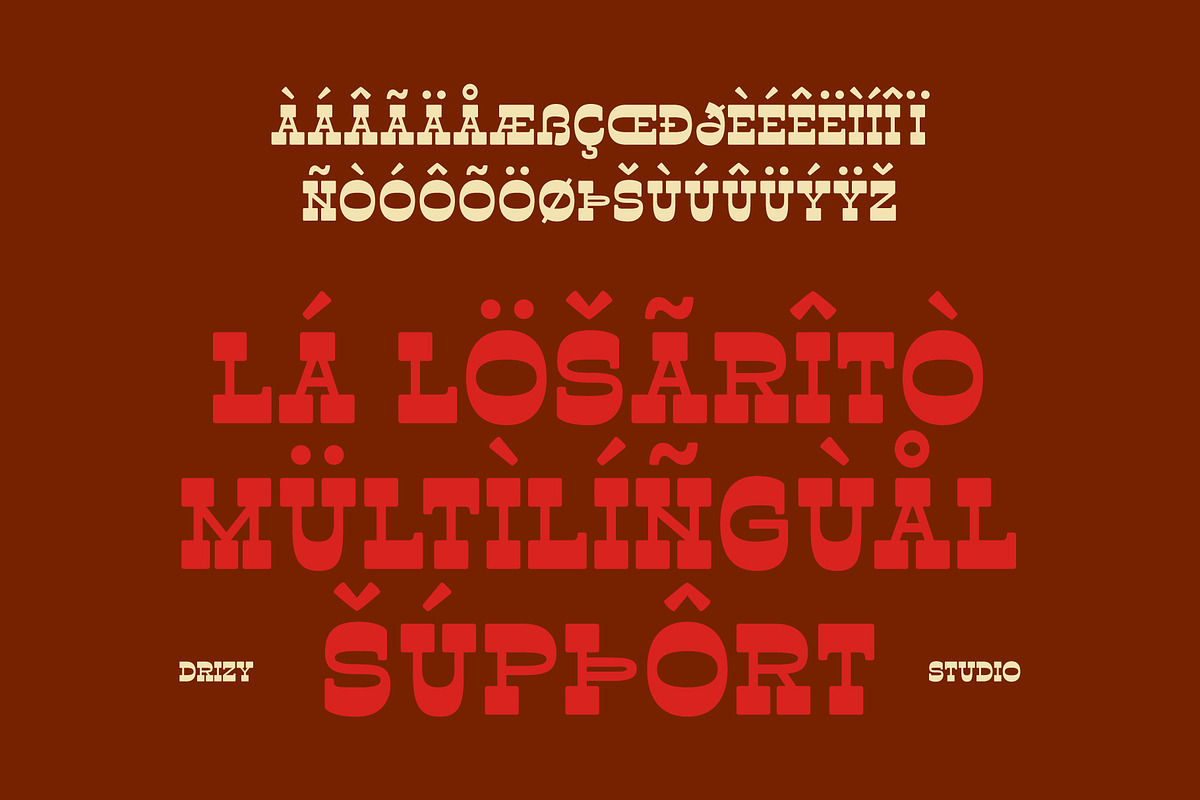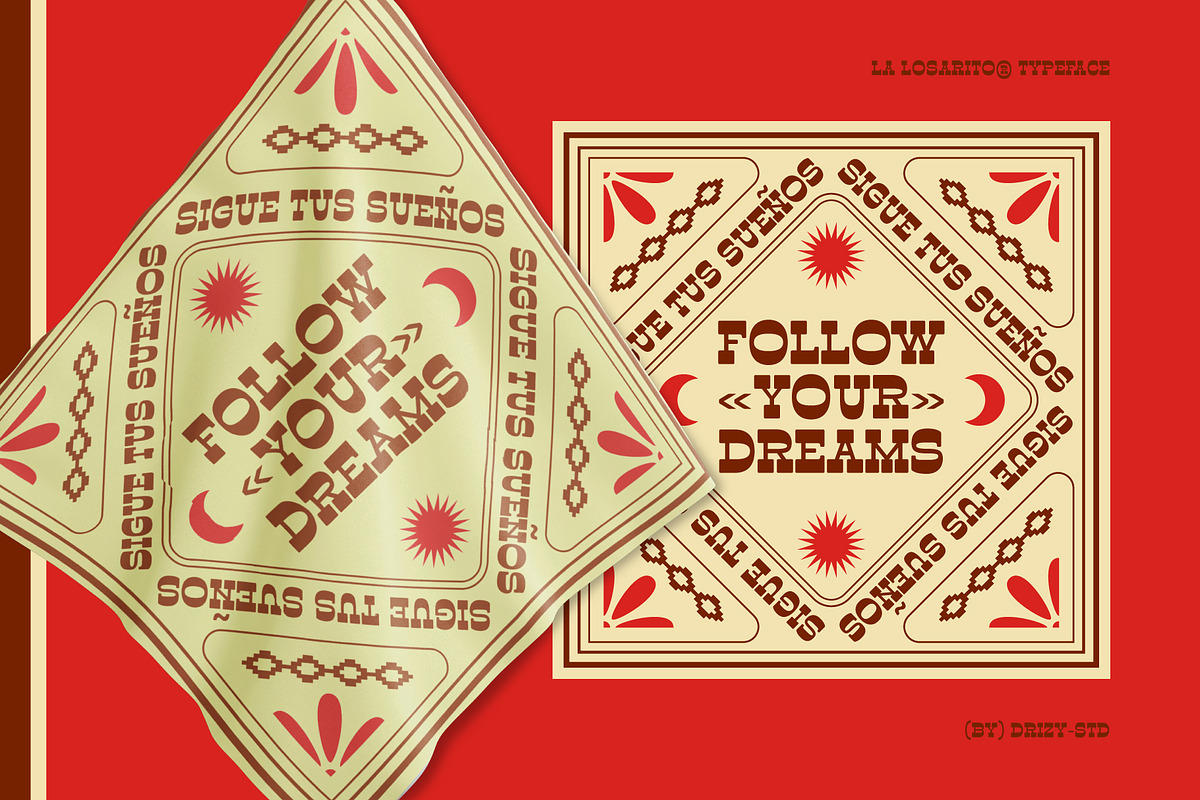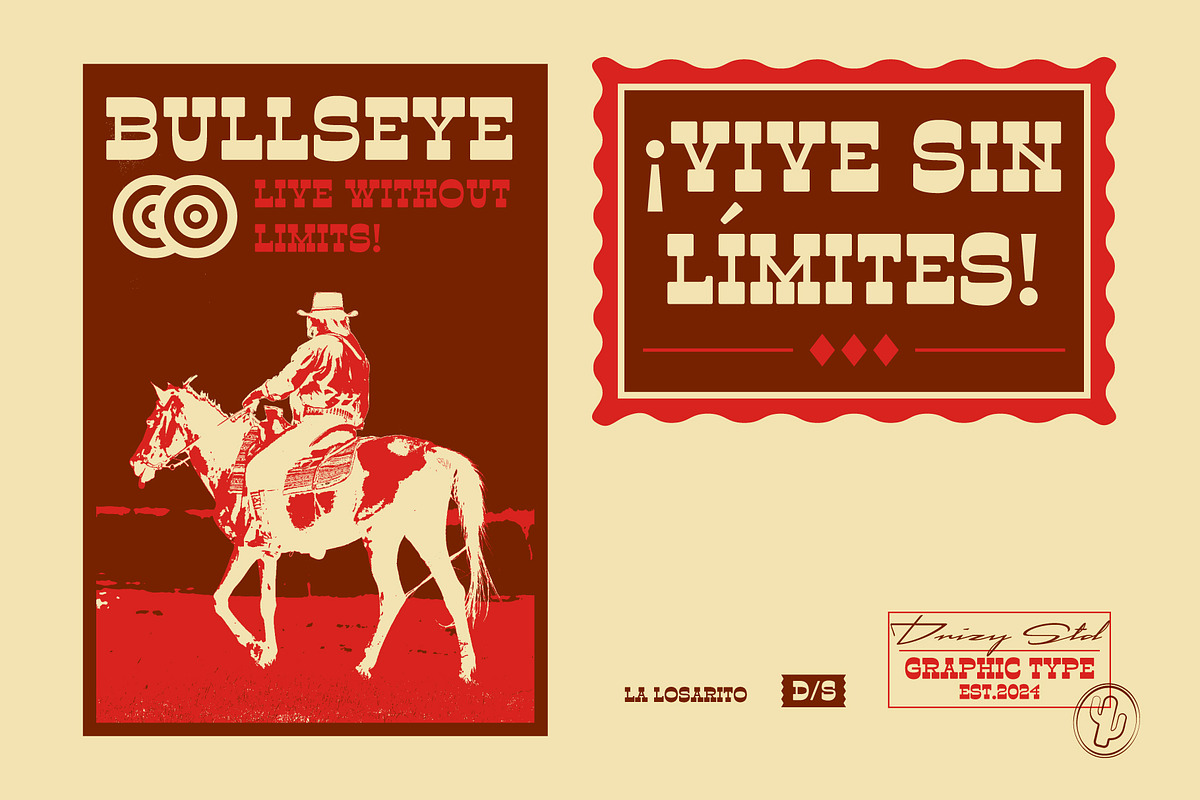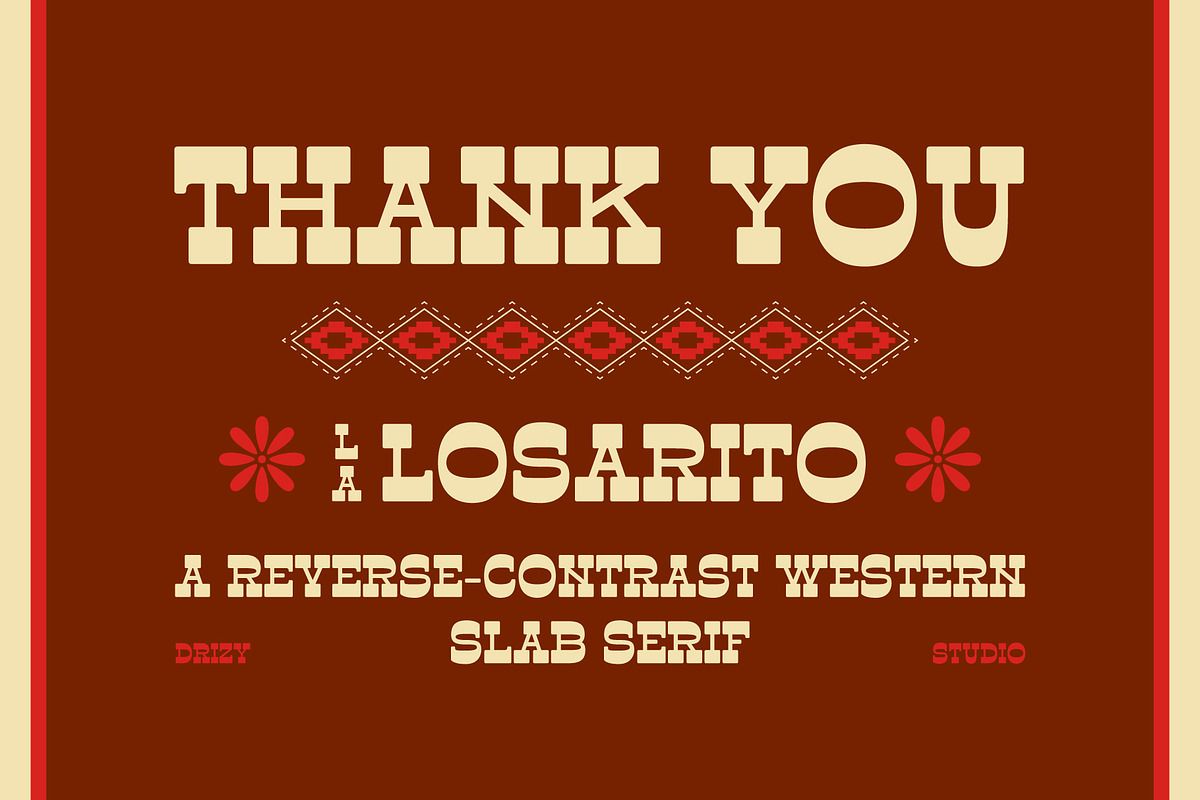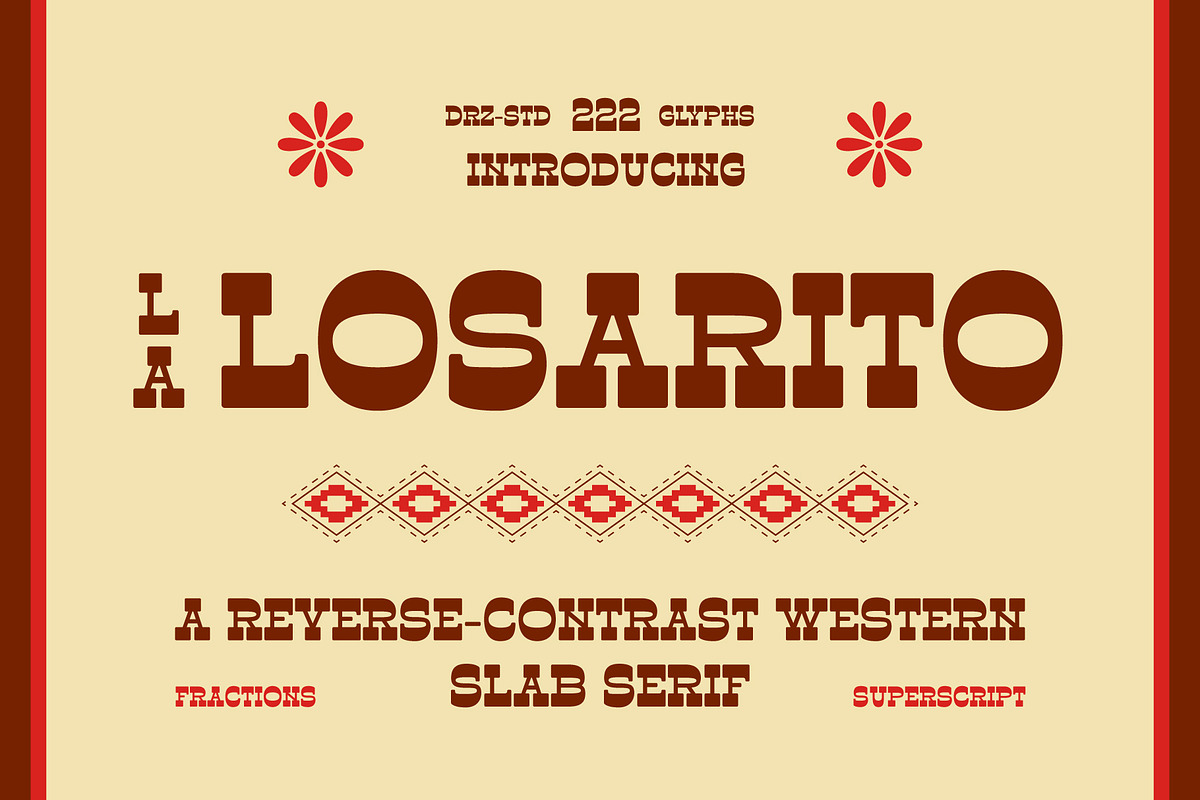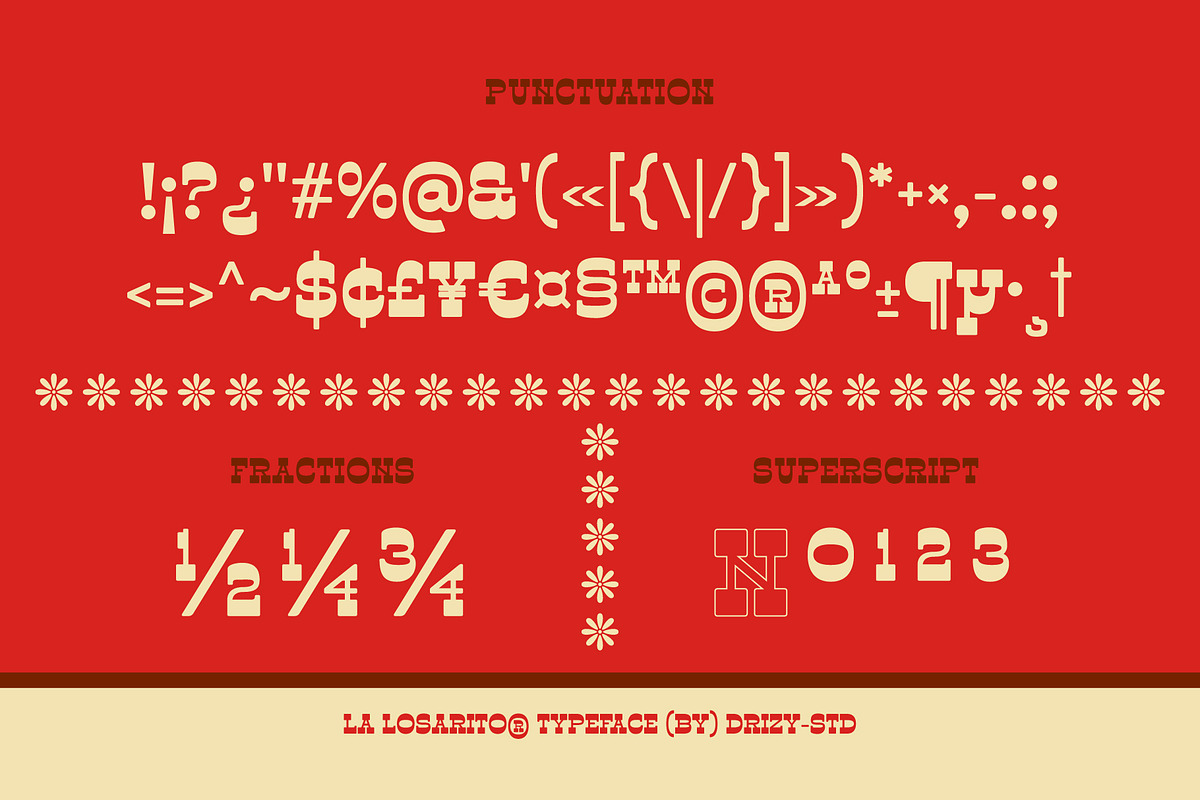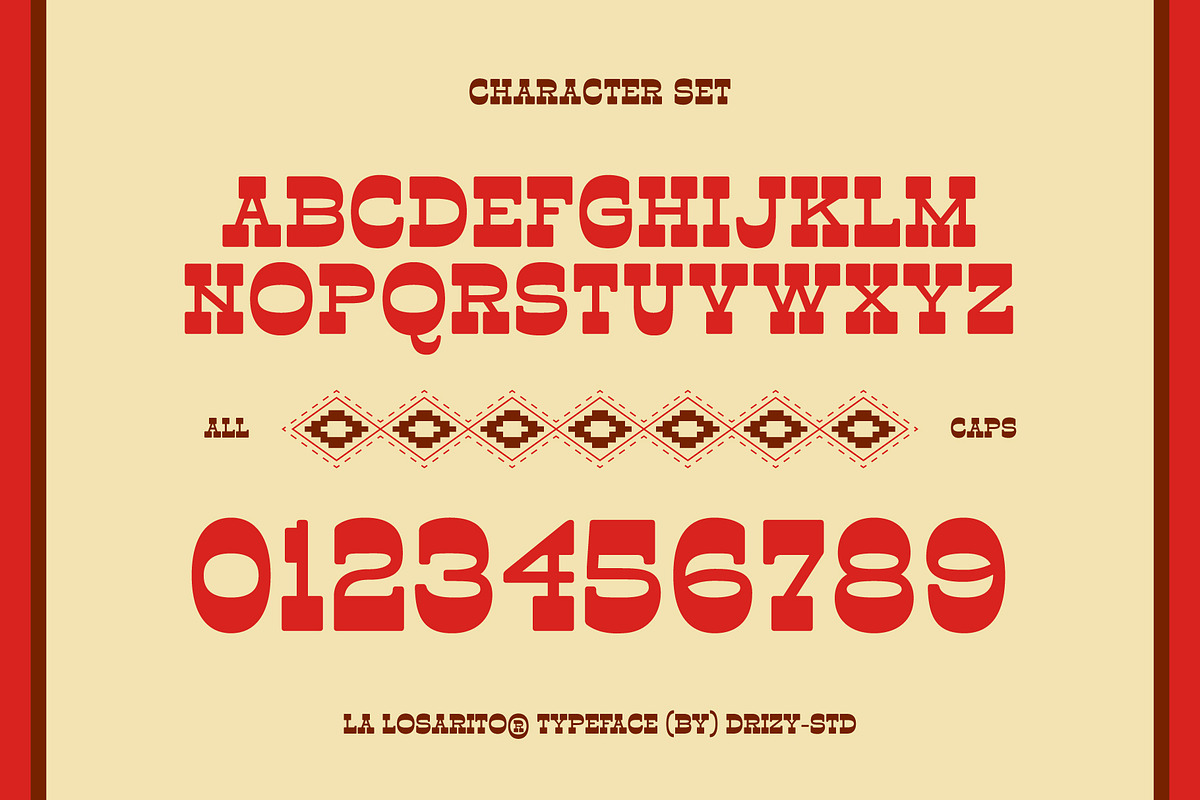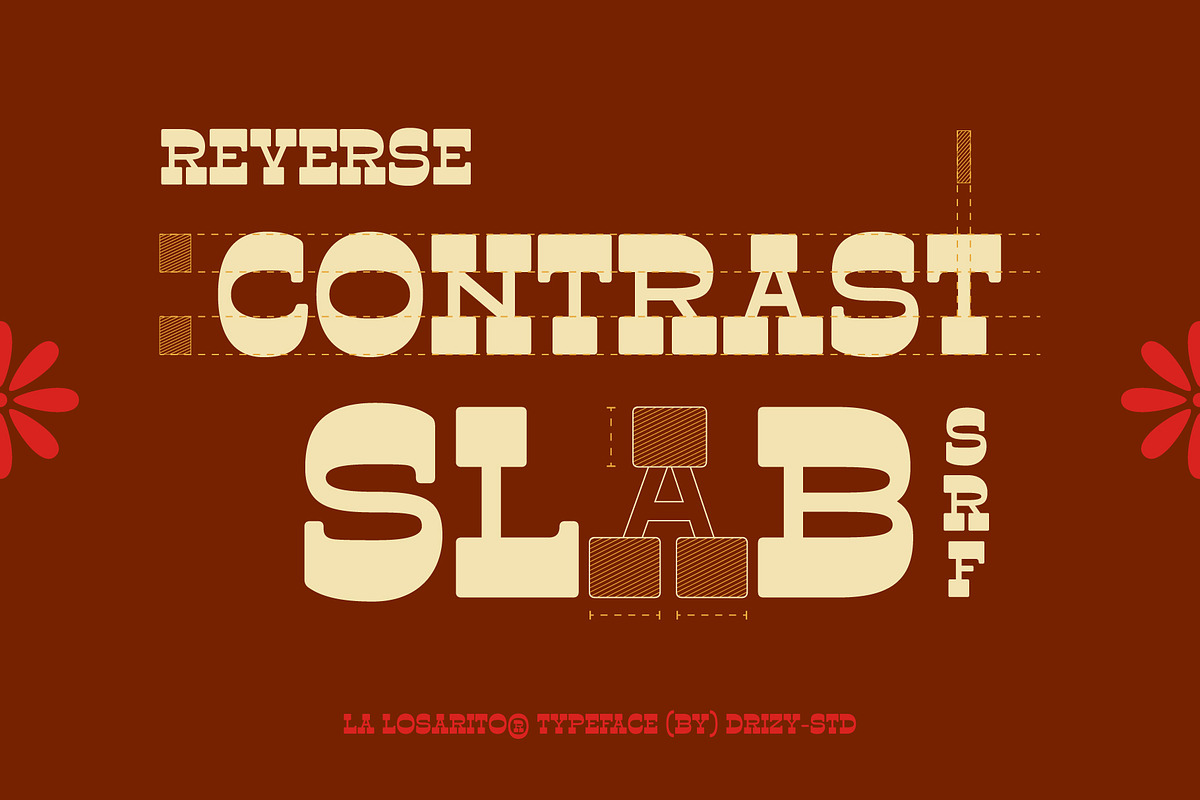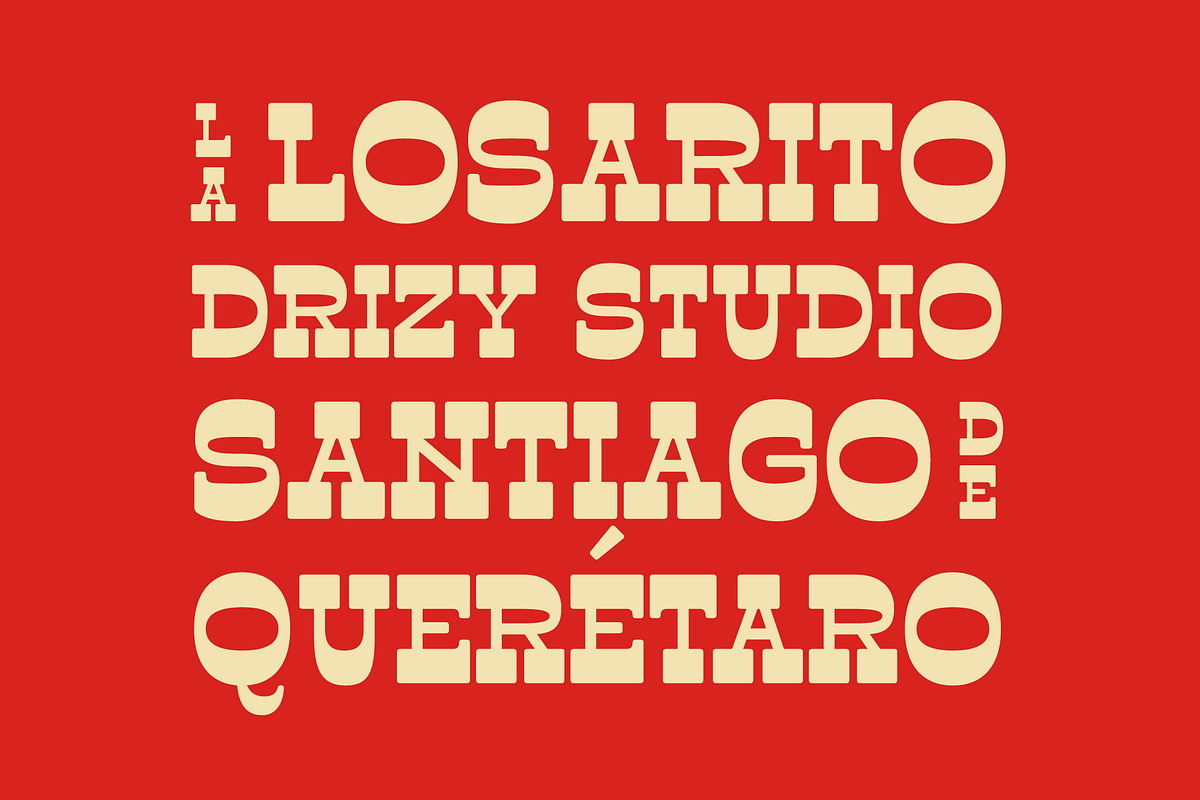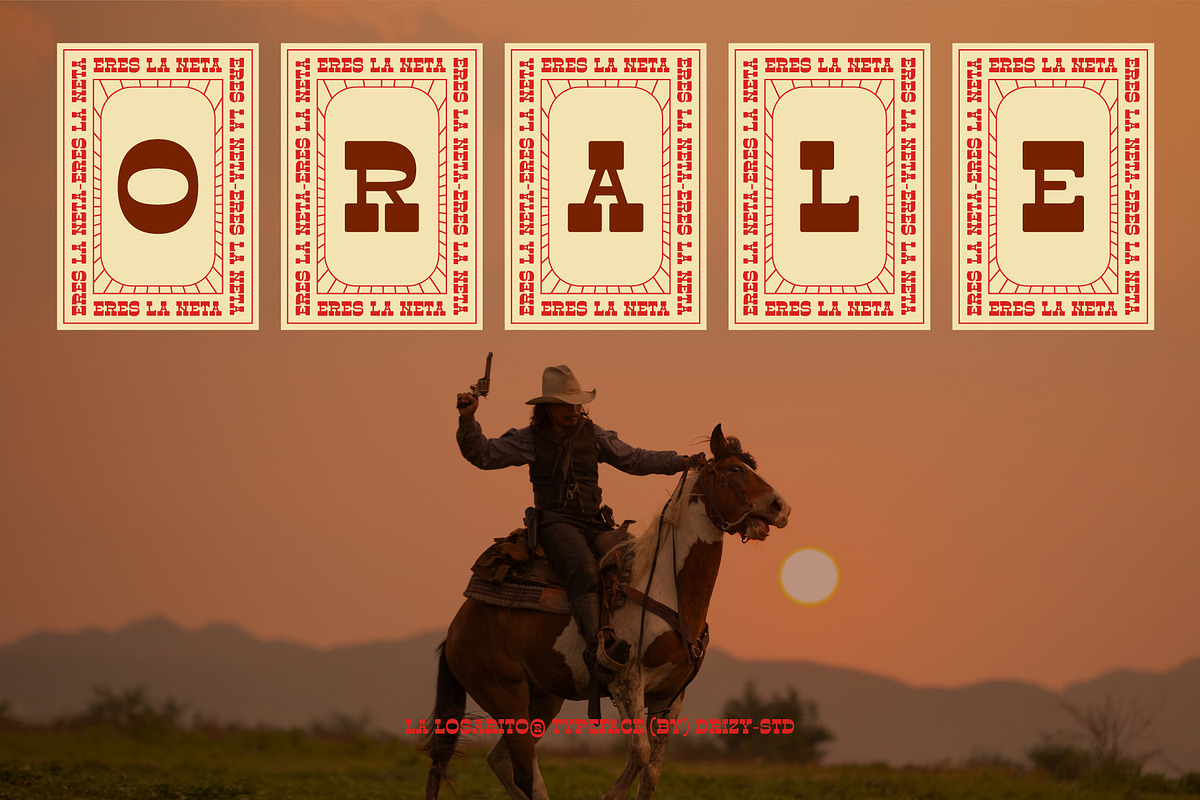
La Losarito – Reverse Contrast Weste
La Losarito is a font that draws inspiration from traditional vintage-Mexican design elements. It embodies a blend of cultural heritage and artistic craftsmanship, evoking a nostalgic feel while being suitable for contemporary uses. The font typically features bold, decorative letterforms with intricate detailing that reflect Mexican folk art and typography. La Losarito stands out for its ability to convey a sense of history and tradition, making it a popular choice for designers looking to infuse their work with cultural richness and visual appeal.
La Losarito features:
- Character Set (All Caps)
- Punctuation & Numbers